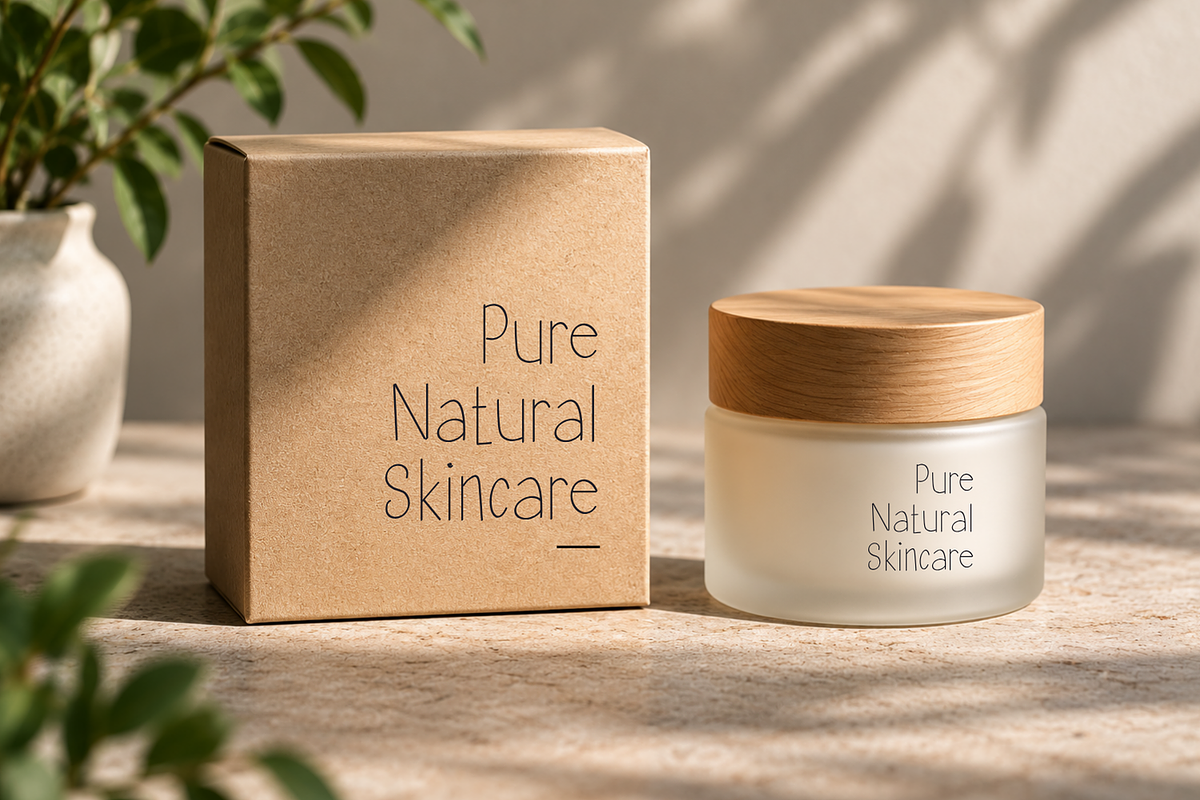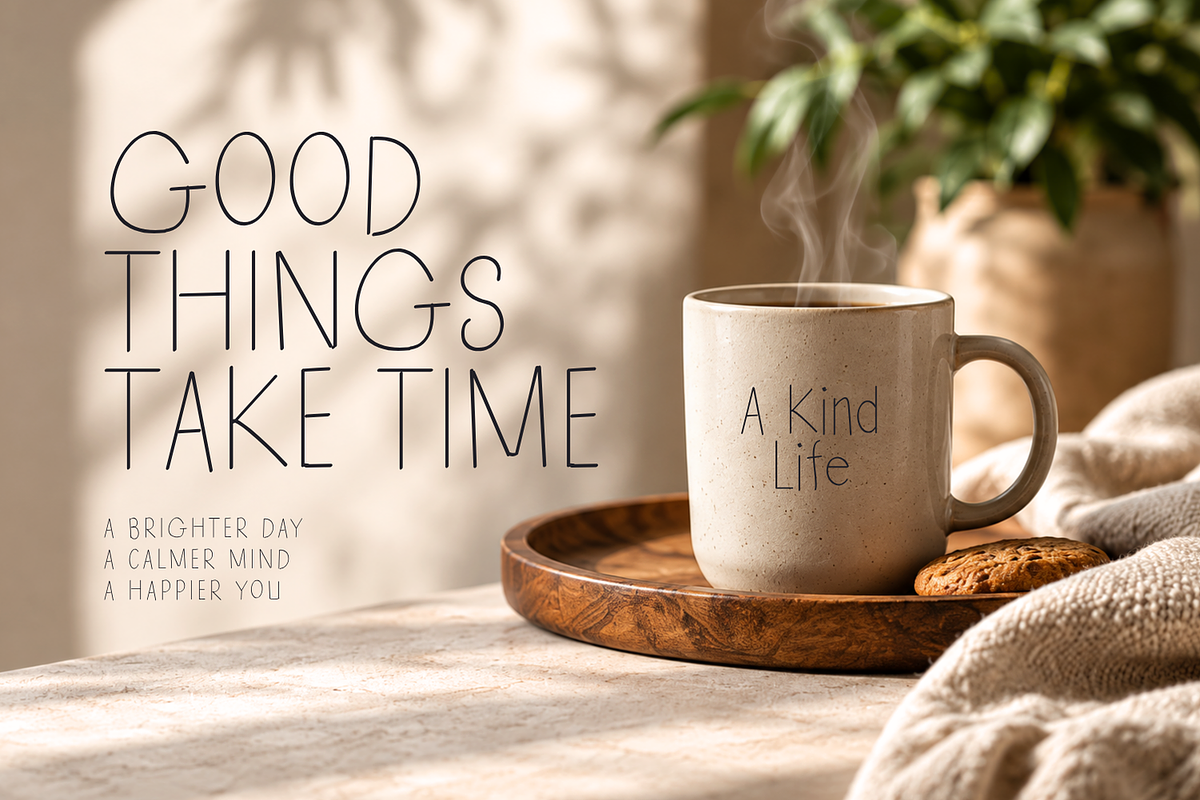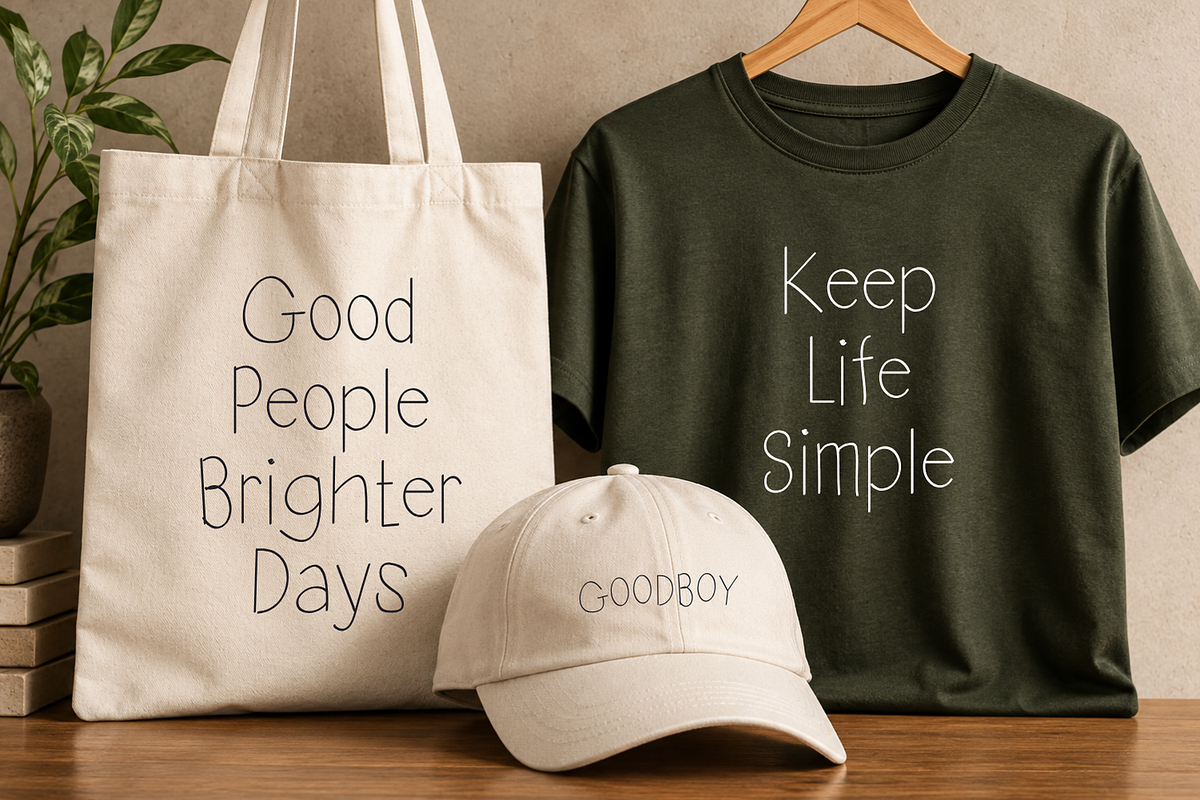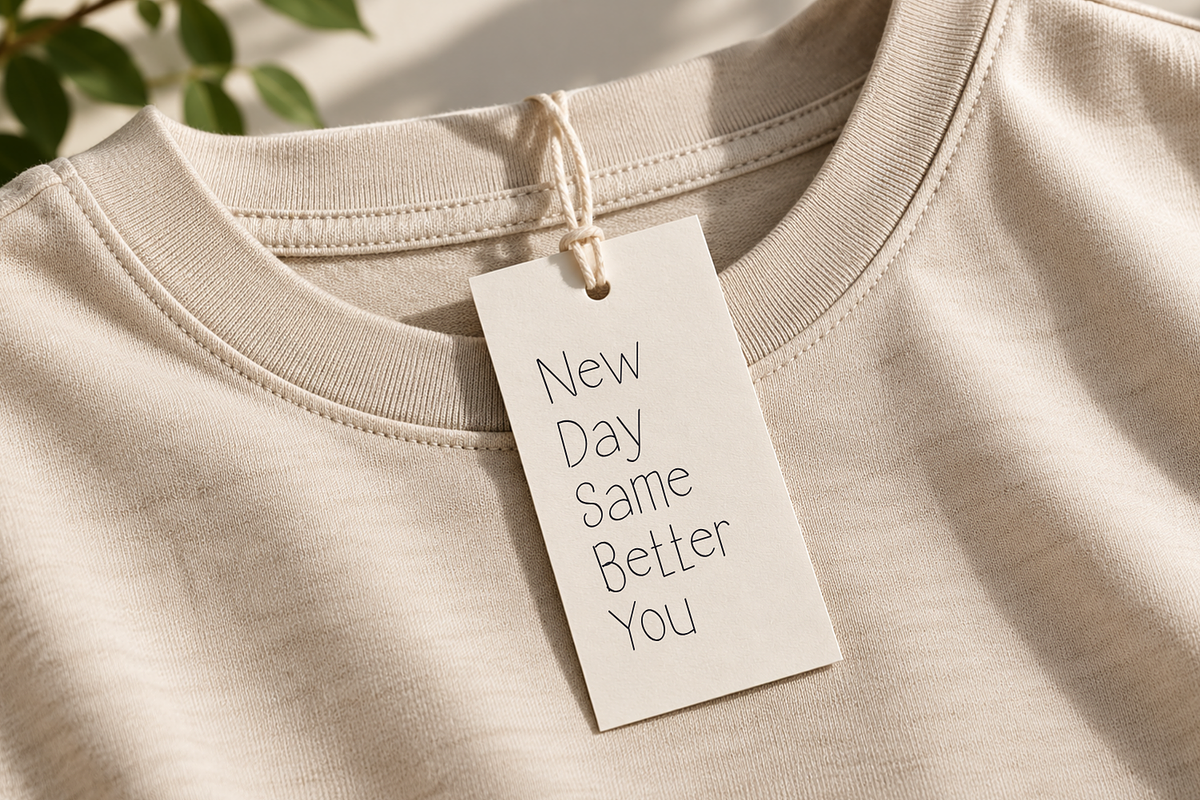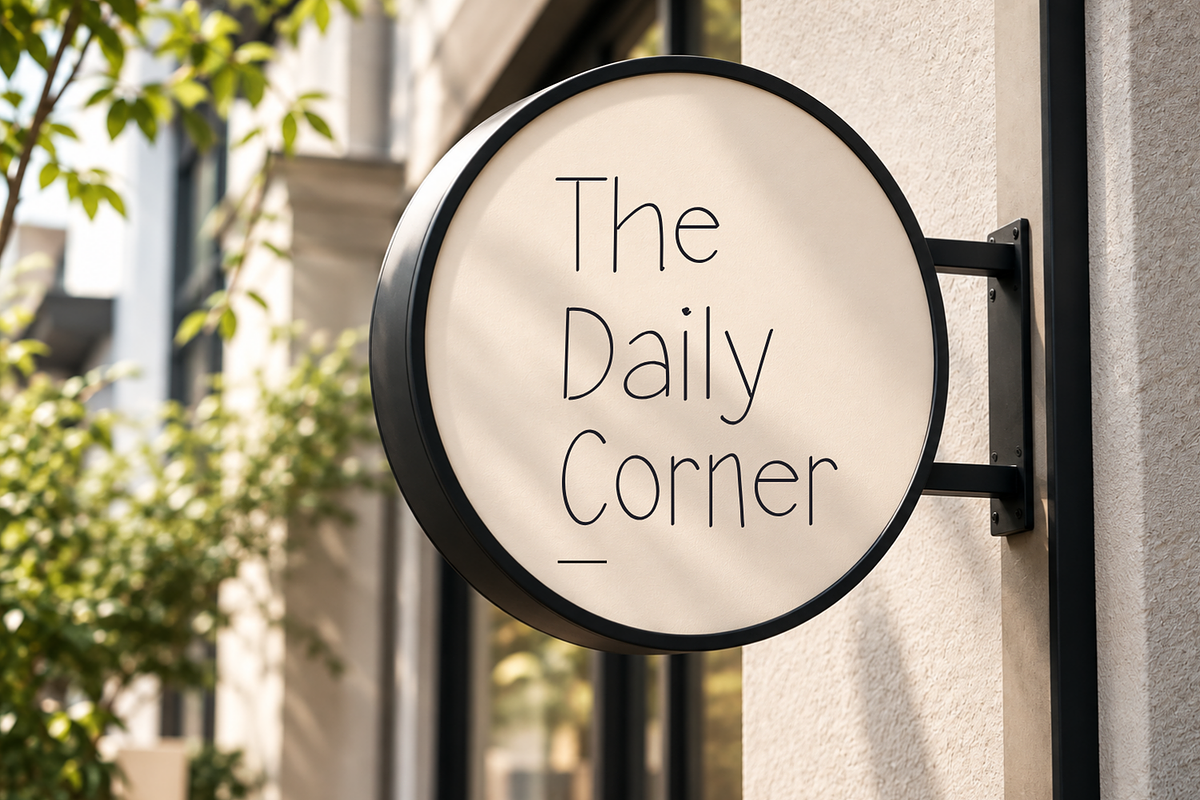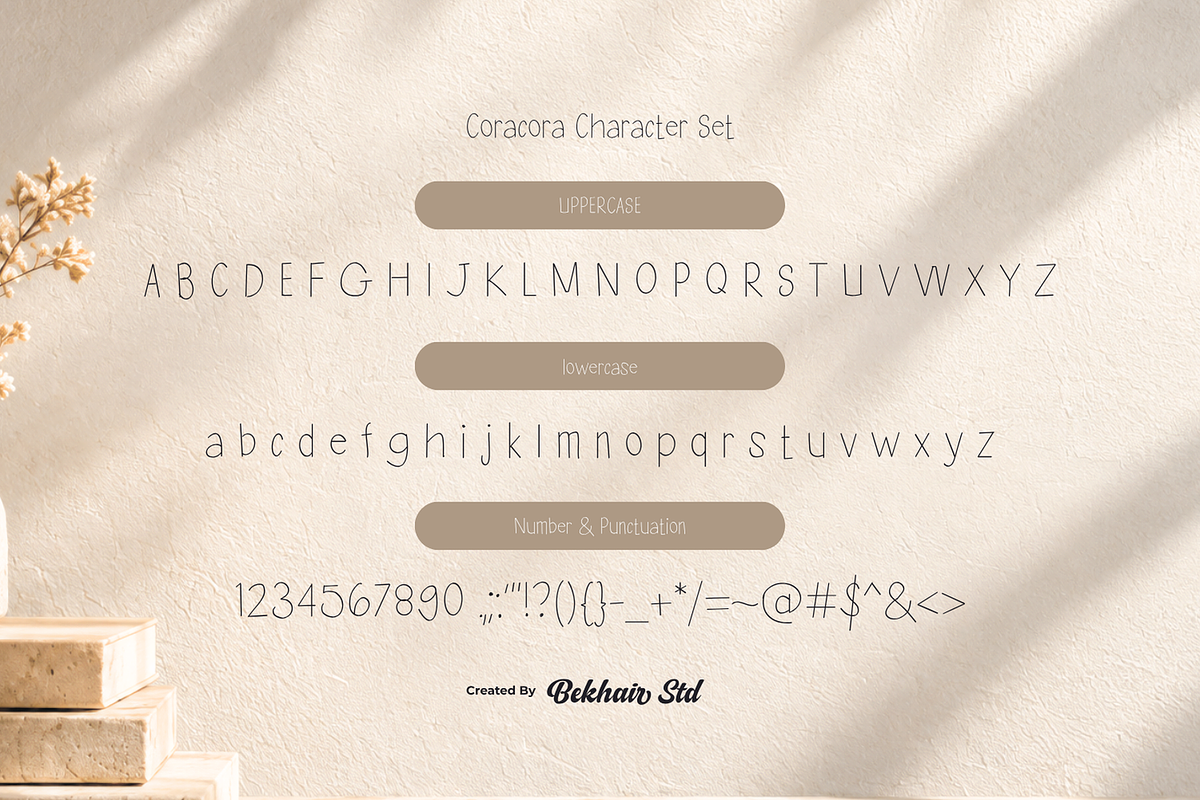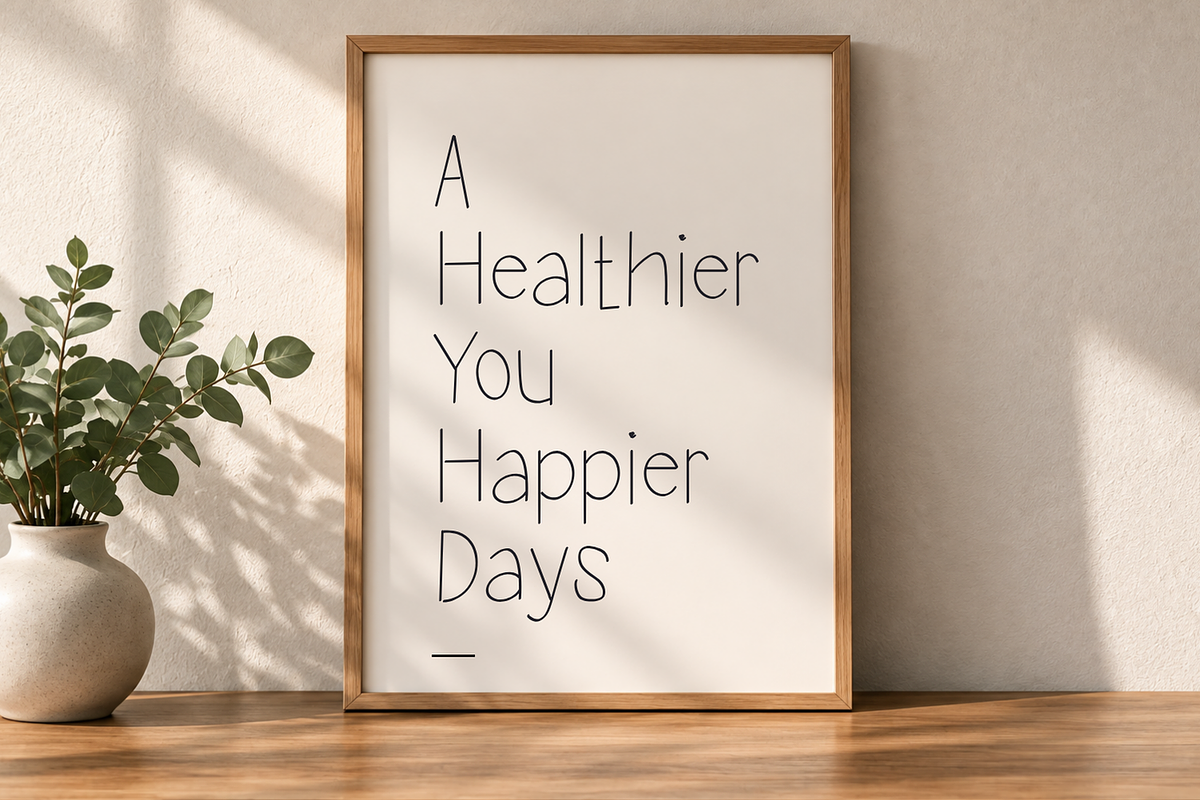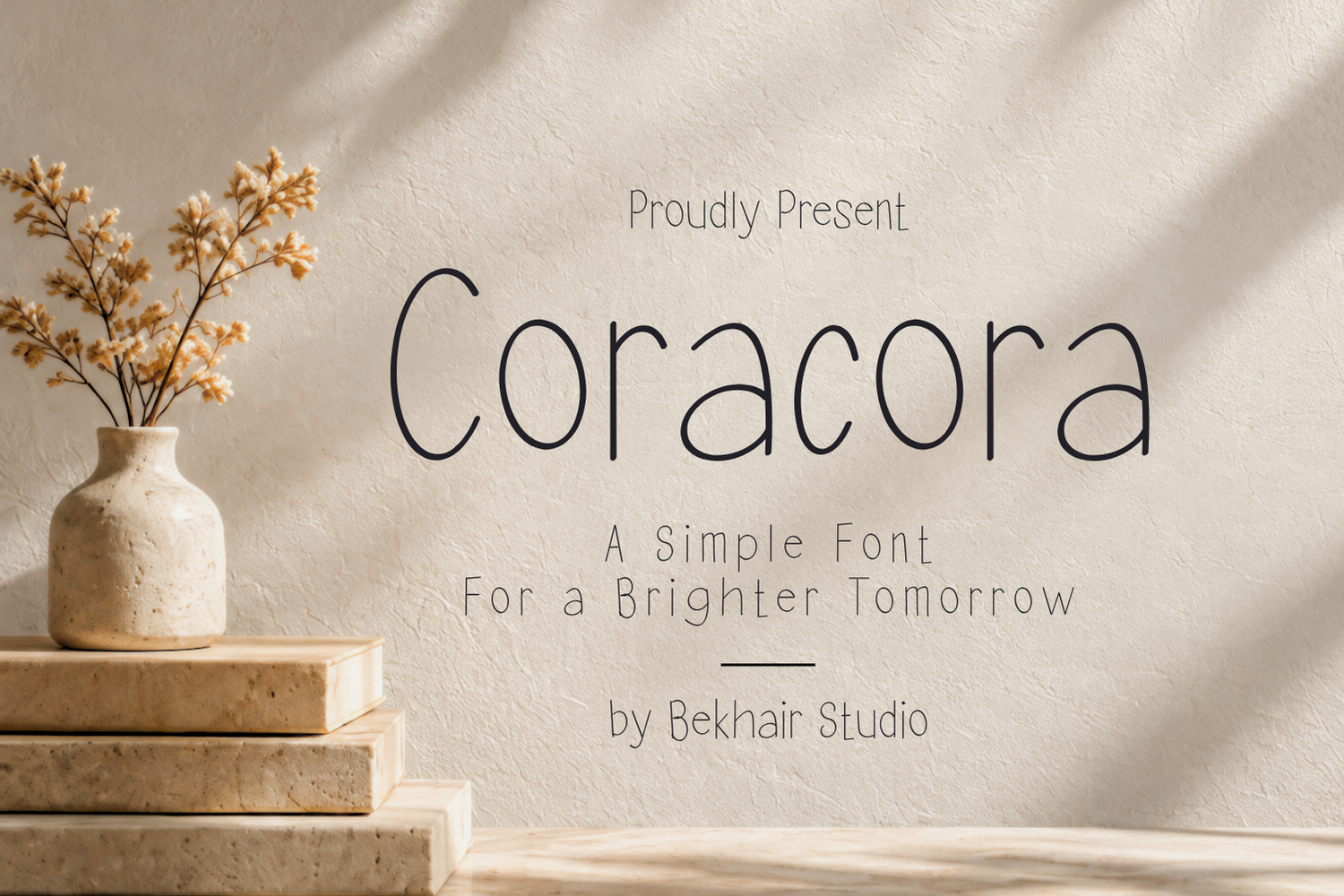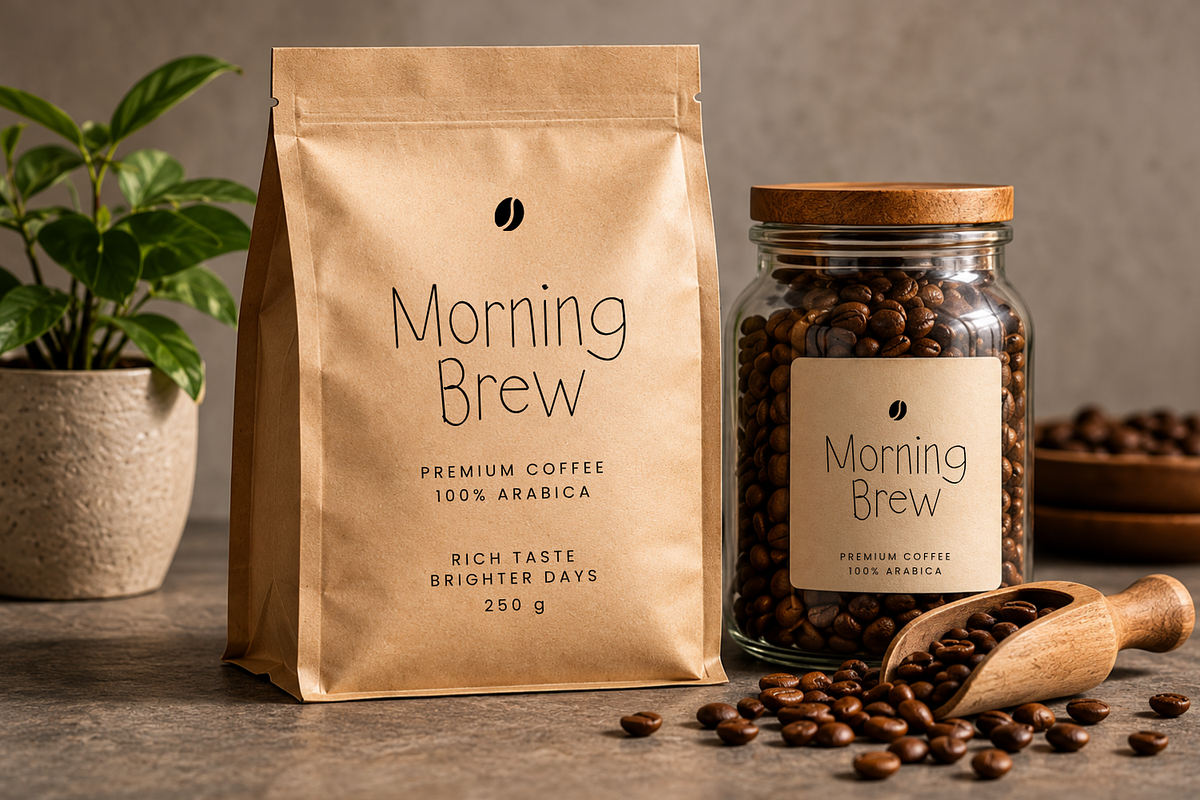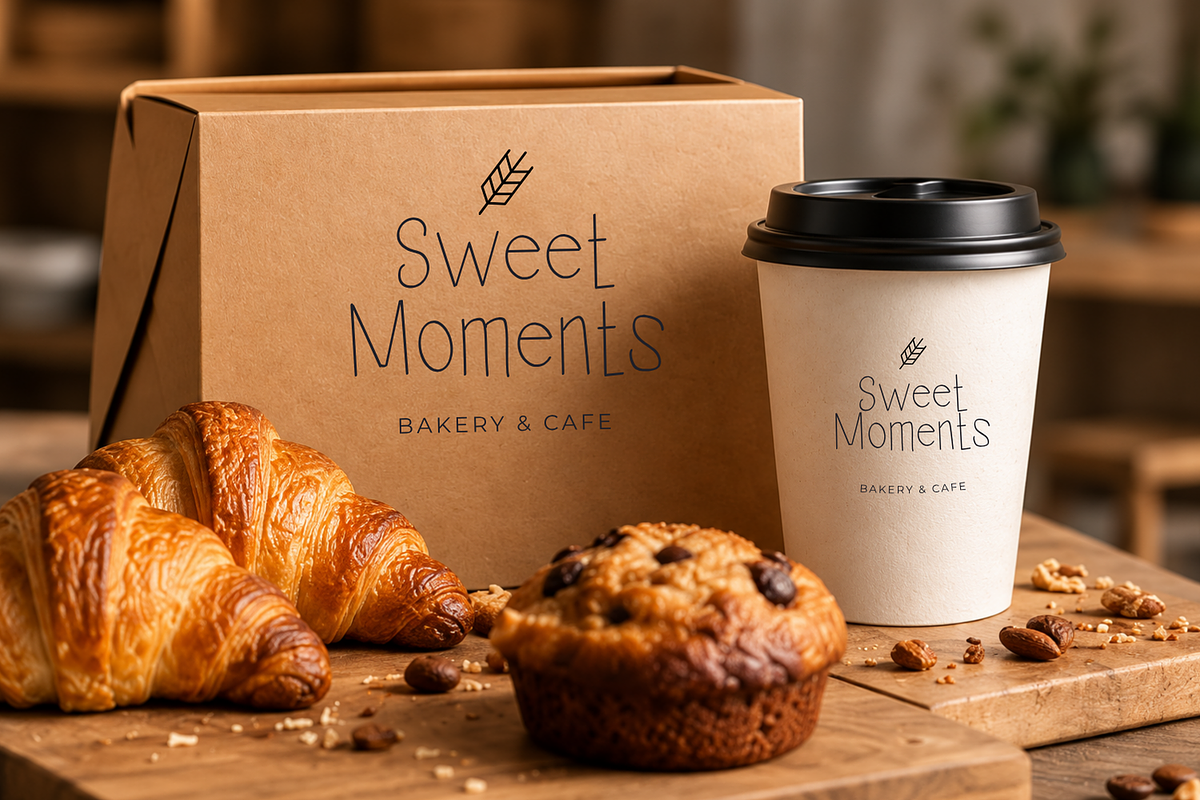
Coracora – Thin Handwritten Font
Coracora is a delicate, ultra-thin display typeface with a clean, narrow construction and a distinctive hand-drawn personality. Its monoline strokes, elongated proportions, rounded curves, and lightweight appearance create an airy, playful, modern, and elegant visual style.
Designed by Bekhair Studio, Coracora works beautifully for projects that need a soft, minimal, and approachable typographic voice. Its slender letterforms are especially effective for branding, lifestyle products, café and bakery identities, packaging, editorial layouts, posters, stationery, apparel, social media graphics, and creative advertising.
The font includes uppercase letters, lowercase letters, and numerals, making it versatile for both display headlines and supporting typography. Its tall, delicate proportions allow large words and short phrases to create an elegant visual statement without feeling heavy or crowded.
Coracora is particularly suitable for minimal branding, lifestyle aesthetics, modern café concepts, boutique products, fashion, stationery, wellness, beauty, and editorial design. Use it at larger sizes to showcase its distinctive letterforms and refined thin-line character.